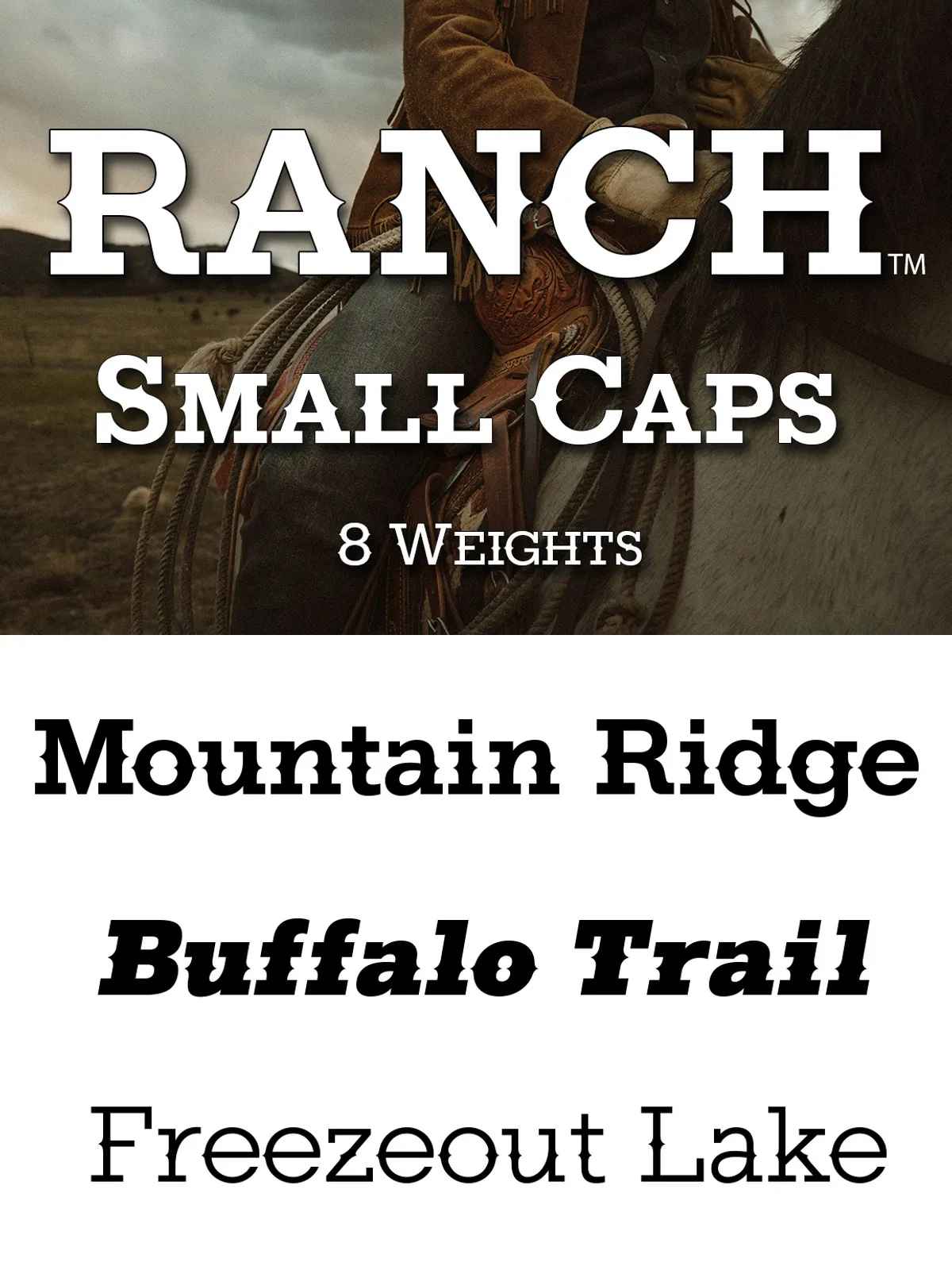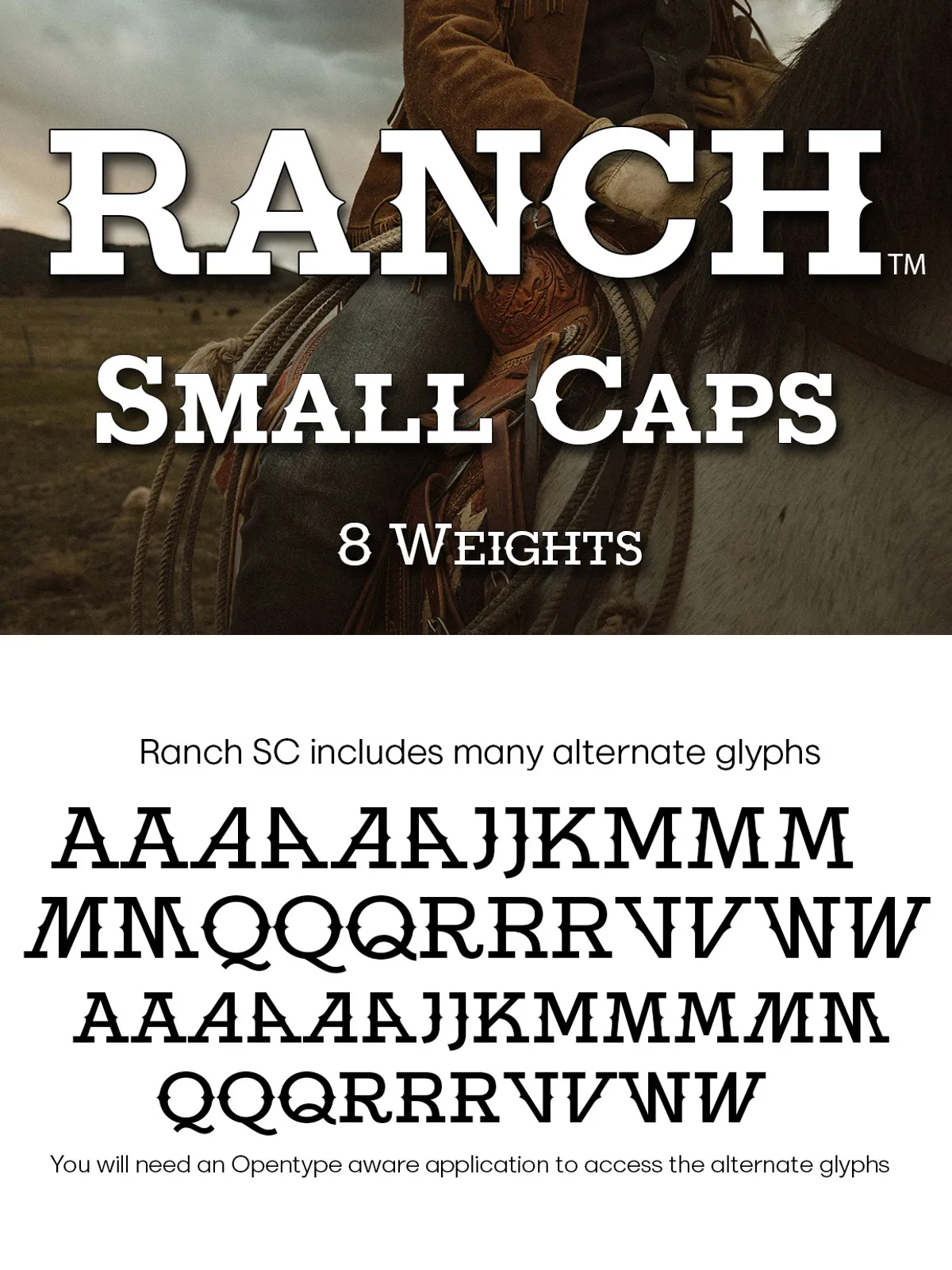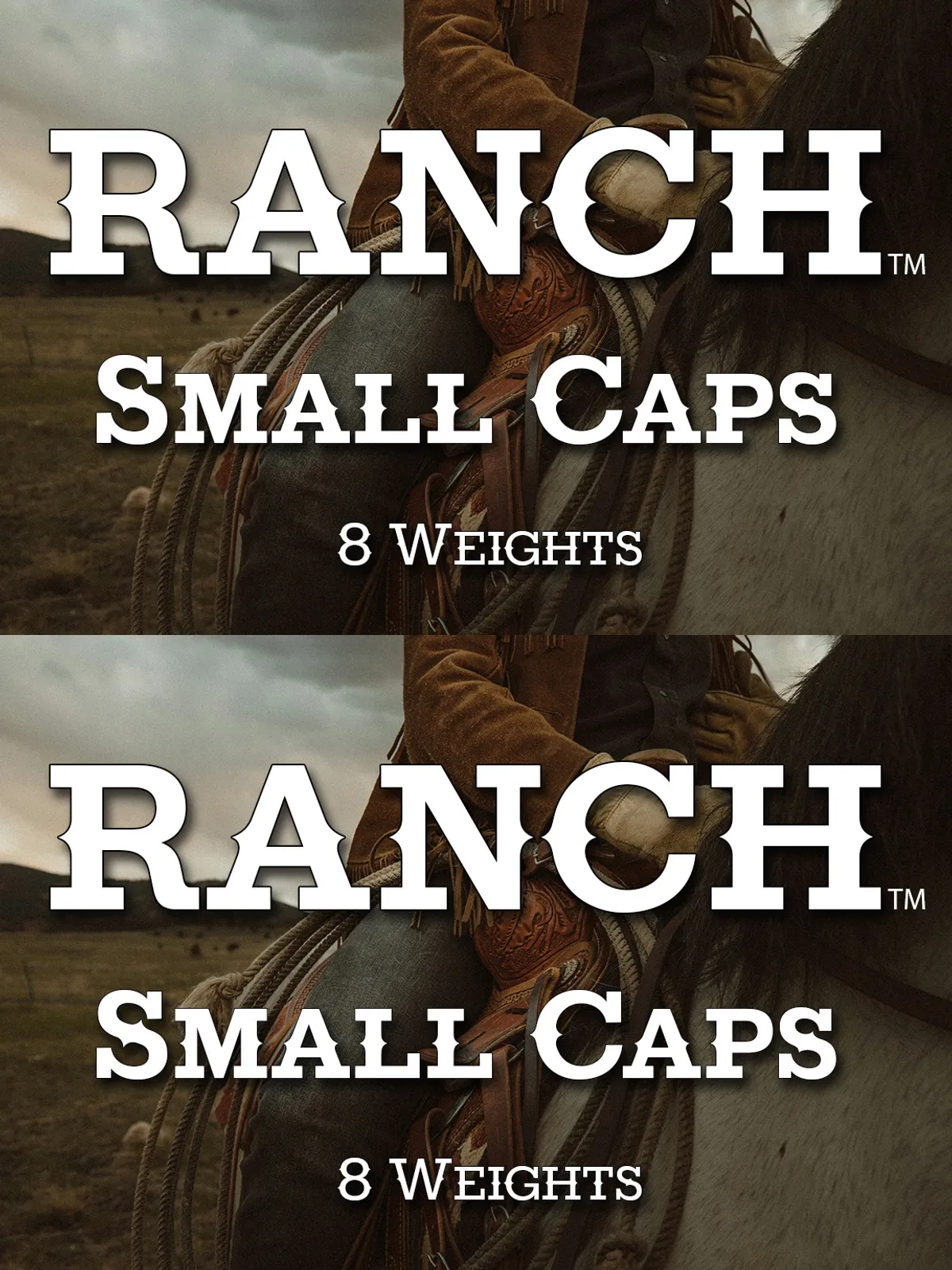
At FontMesa we’ve decided it was time to make a multiple weight spurred slab serif font family in both regular and small caps.
With eight weights plus italics Ranch SC is your go to font for all things western, whether it’s old west or modern west.
Ranch SC is perfect for logos and advertising for BBQ and Steak House restaurants.
If you’re in the business of leather products then Ranch SC is perfect for your business name or advertising.
Ranch SC is also great for Tex Mex restaurants and Taco Food Trucks, the spurred letters get attention and brings those customers in.
There are lots of alternate glyphs included in Ranch SC and swash caps are also available.